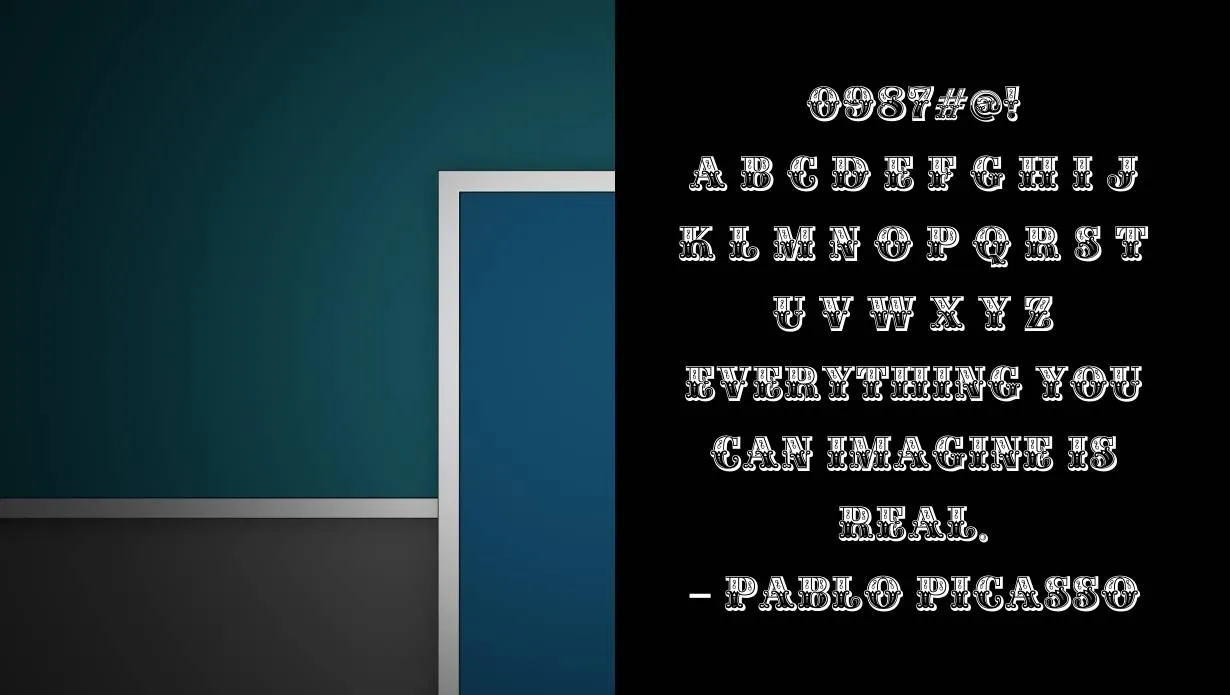
Today, we are going to present a very fascinating typeface named Gille Classic Font. This cute font family belongs to the Fancy fonts family. The original designer of this typeface was Michael Hagemann. It was released to the general public in the year 2004.
This Font is an all-caps typeface with a vintage touch. This cute font contains different letters, numbers, and symbols. You can use this typeface for the public transportation rule. Many YouTubers use this gorgeous typeface for their thumbnails and video editing.
Gille Classic Font Family
Gille Classic Font is an all-caps typeface with a vintage touch. This cute font contains different letters, numbers, and symbols. It also supports many languages. This tremendous font is perfect for designing posters, book covers, and headers. This font is very close to the slime font.